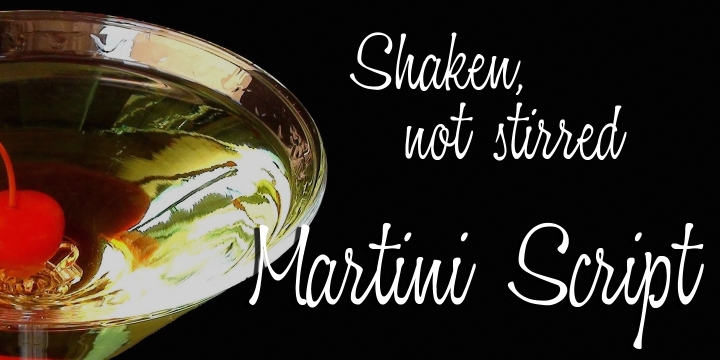
• Martini Script
Martini Script is a cool, retro script with its origins in the hand-lettered ads of the 40s and 50s. During the second half of the 20th century, the introduction of new technologies, along with a change of taste, brought about the demise of hand lettering skills. We have attempted to revive this hand lettered look in the design of Martini Script.
Martini Script has a casual, friendly, stylish charm, and is extremely versatile. The font comes in two styles; Martini Script Regular and Martini Script Fat, which work together to create a dynamic, confident look, perfect for a variety of applications, from posters and signs, to book and music covers and product packaging. Martini Script has standard OpenType features, and language support includes all European character sets.